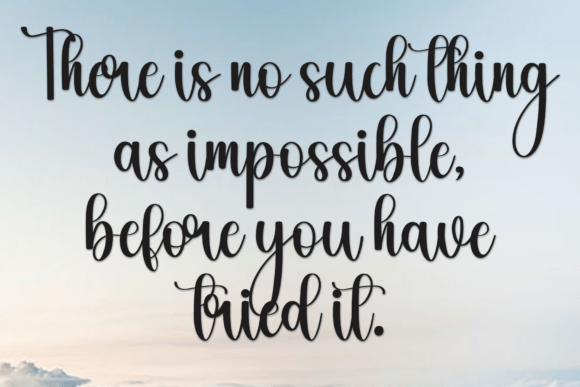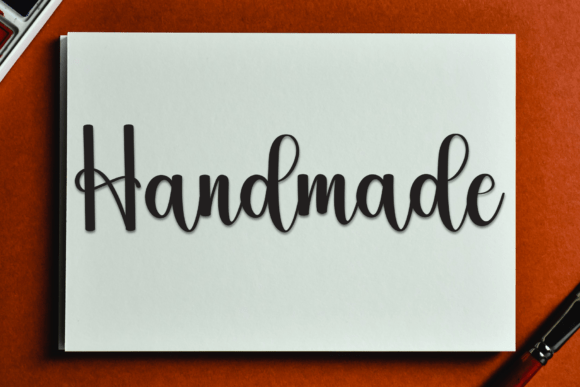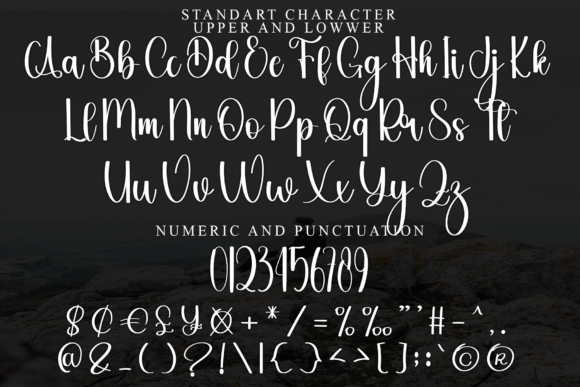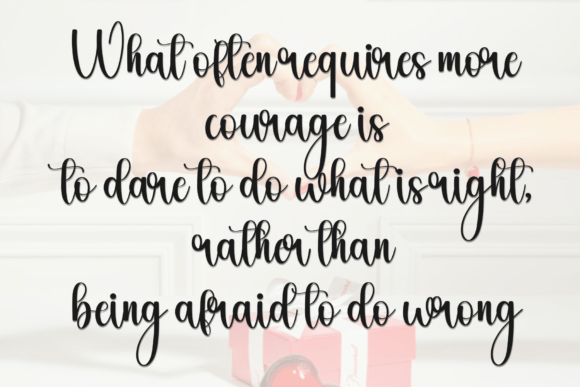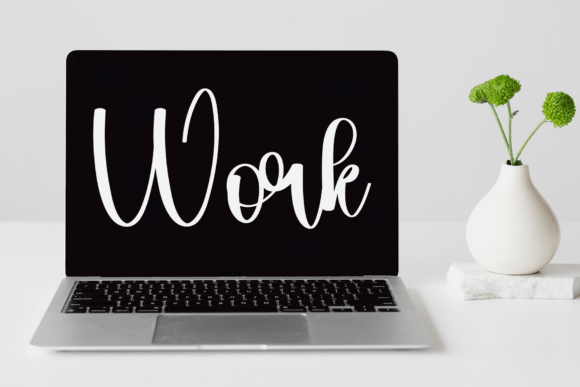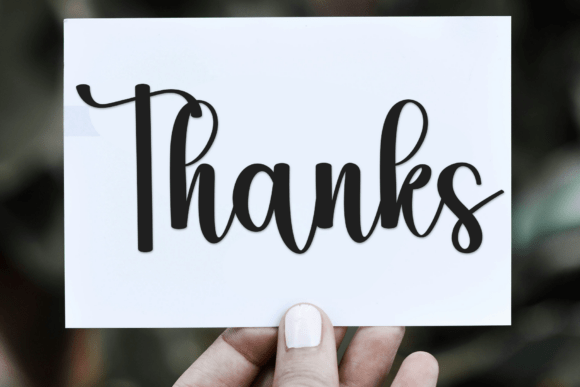
Introducing Daylight Saving Font: A Festive and Merry Typeface for the Holiday Season
The holiday season is upon us, and what better way to get into the spirit than with a font that’s as festive and merry as the time of year itself? Look no further than the Daylight Saving Font, a decorative typeface that’s perfect for adding a touch of enchantment to your designs. With its whimsical flair and nostalgic ambiance, this font is sure to bring a smile to the faces of your friends and family.
A Font that’s Full of Holiday Cheer
Daylight Saving Font is a beautifully crafted typeface that’s designed to capture the magic of the holiday season. Its decorative elements and whimsical flair make it perfect for a wide range of projects, from greeting cards and gift tags to holiday-themed posters and social media graphics. Whether you’re a designer, crafter, or simply someone who loves to get creative during the holidays, this font is sure to become a favorite.
One of the best things about Daylight Saving Font is its versatility. It’s perfect for a wide range of projects, including:
- Greeting cards: Whether you’re making your own holiday cards or creating custom cards for clients, this font is sure to add a touch of festive flair.
- Gift tags: Add a personal touch to your gifts with custom gift tags made using Daylight Saving Font.
- Holiday-themed posters: Create eye-catching posters for your business or personal use with this festive font.
- Social media graphics: Add some holiday cheer to your social media graphics with Daylight Saving Font.
One of the things that sets Daylight Saving Font apart from other fonts is its PUA (Private Use Area) encoding. This means that you can access all of the amazing glyphs and ligatures with ease, making it simple to create beautiful and intricate designs. Whether you’re a seasoned designer or just starting out, PUA encoding makes it easy to get the most out of this font.
Why Choose Daylight Saving Font?
So why choose Daylight Saving Font over other holiday-themed fonts? Here are just a few reasons:
- Unique and festive design: This font has a unique and festive design that’s sure to stand out from the crowd.
- Highly versatile: Daylight Saving Font is perfect for a wide range of projects, from greeting cards to social media graphics.
- Easy to use: With PUA encoding, it’s easy to access all of the glyphs and ligatures, making it simple to create beautiful designs.
- Nostalgic ambiance: This font has a nostalgic ambiance that’s sure to bring a smile to the faces of your friends and family.
Tips for Using Daylight Saving Font
Here are a few tips for getting the most out of Daylight Saving Font:
- Experiment with different colors: This font looks great in a wide range of colors, so don’t be afraid to experiment and find the perfect hue for your project.
- Pair with other fonts: Daylight Saving Font pairs well with a wide range of other fonts, so feel free to get creative and try out different combinations.
- Use for headlines and titles: This font is perfect for headlines and titles, but don’t be afraid to use it for body text as well.